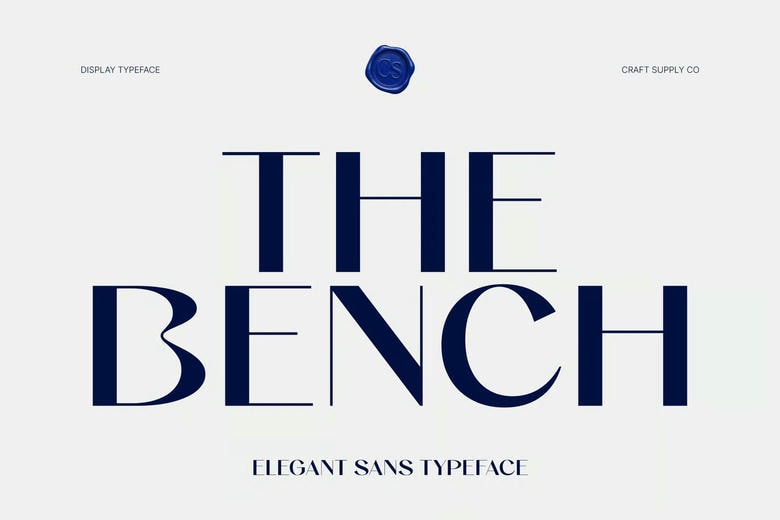
Bench Font
Bench is a modern sans-serif font with minimalist shapes and clean lines. Its refined strokes and wide letter spacing add a touch of luxury and keep the look up to date.
The balanced design makes Bench versatile for high-end projects that need a modern, clear look. Its wide spacing and simple shapes help designers create layouts that feel open and stylish.
Bench works well for fashion magazines, architecture portfolios, and clean corporate branding. In magazines, it gives section headers and quotes a polished look.